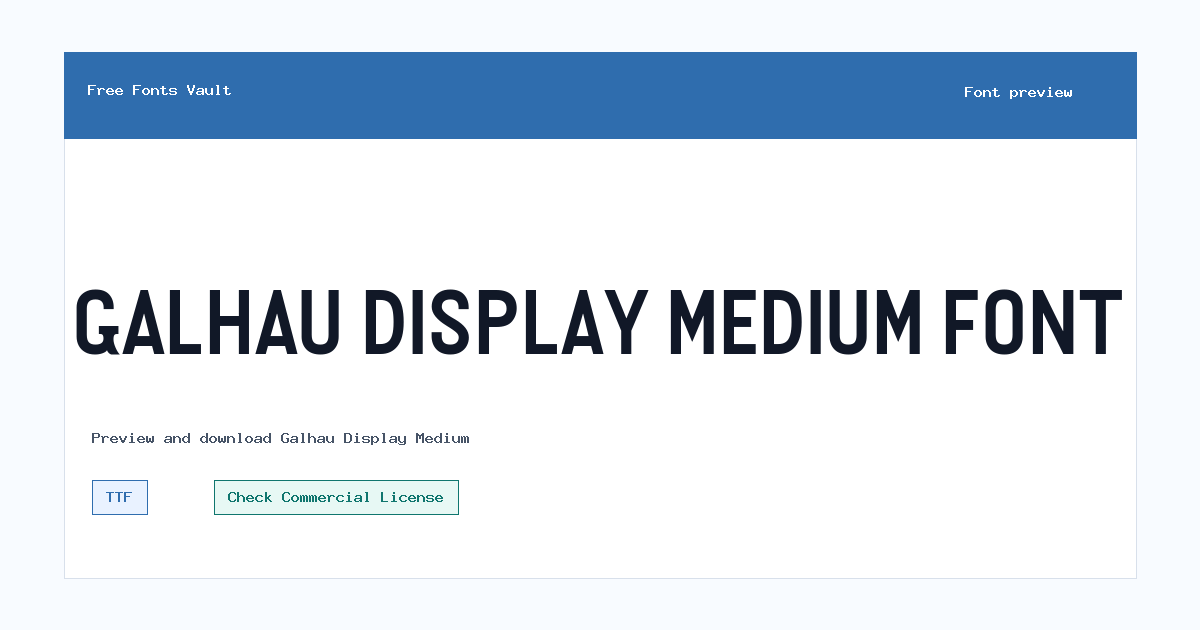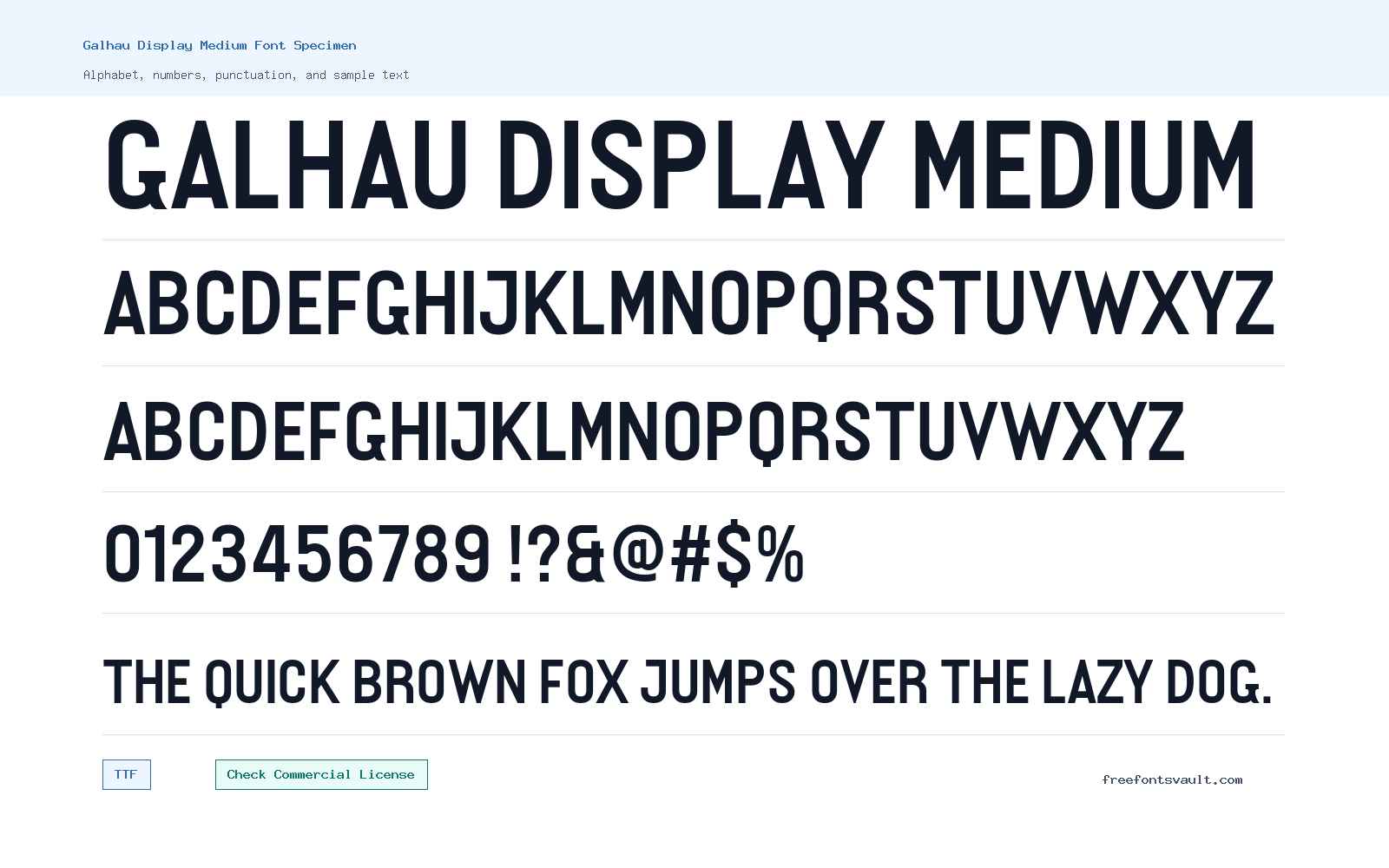
Galhau Display Medium
Galhau Display Medium font.
Galhau Display Medium is a medium-weight display font family with upright and slanted TTF styles, made for short text that needs a stronger visual presence than body copy.
About Galhau Display Medium
Galhau Display Medium is best approached as a display typeface rather than a long-reading text font. Its name and file set point to a medium-weight style with a matching slanted cut, giving you a straightforward choice between a stable upright look and a more angled version for emphasis. Use the live preview to test the exact words you plan to set, especially if the design depends on a brand name, title, or short phrase.
Because the family is supplied as TTF files, it should be easy to try in common design apps and many website font tools. For best results, start with headings, posters, social graphics, packaging mockups, thumbnails, and short interface labels. Avoid judging it from a single alphabet preview; type your own text, check spacing between difficult letter pairs, and compare the upright and slanted styles at the final size you expect to use.
- Medium-weight display style for titles and short text
- Headlines, posters, and display typography
- Logos drafts, social graphics, and short promotional text
Use Galhau Display Medium where the text is short and the font can be seen clearly. Test uppercase, lowercase, numbers, punctuation, and any accented characters you need before committing it to a finished design. Medium is a flexible middle weight for Galhau Display. It can hold a headline with more presence than regular while staying lighter than bold or extra-bold cuts. Use it when the design needs clean display text with a steady tone, then test the same phrase at thumbnail size to make sure the shapes still read clearly. If the design has several headings, Medium can handle the main title while lighter or heavier cuts build contrast around it. It is a practical first choice for users who want a display look but do not want the heavier variants to dominate the layout.
What is Galhau Display Medium best used for?
It is best for short display text such as headings, posters, social media graphics, thumbnails, and title treatments.
Can I use it for body text?
It is better suited to short text. For paragraphs or long reading, pair it with a simpler text font and use Galhau Display Medium for emphasis.